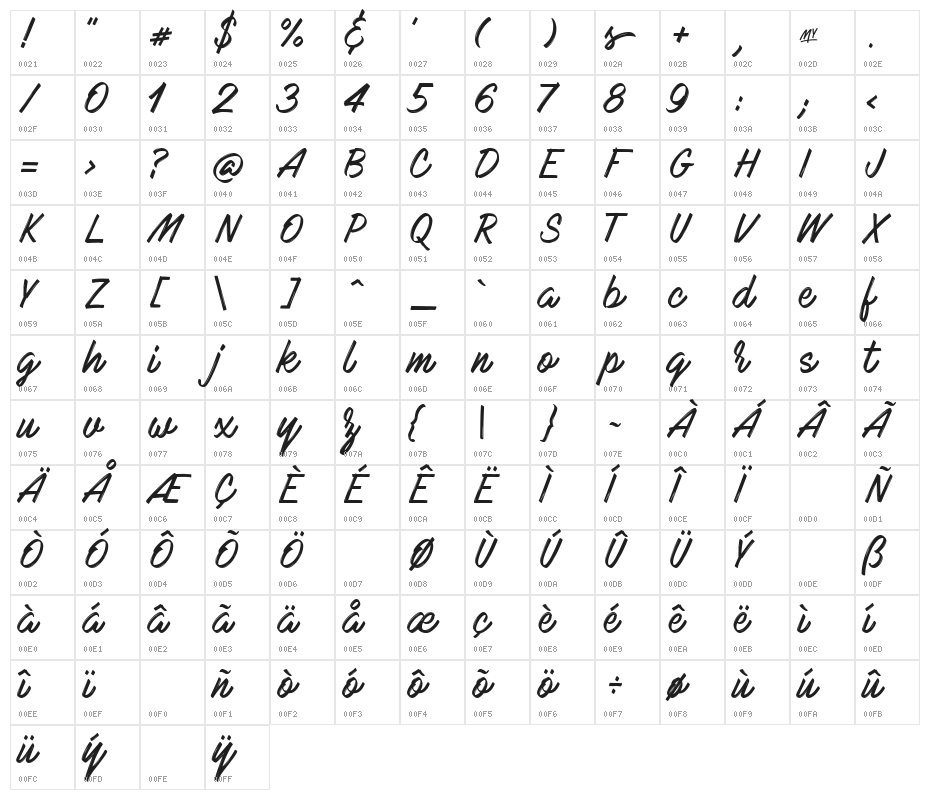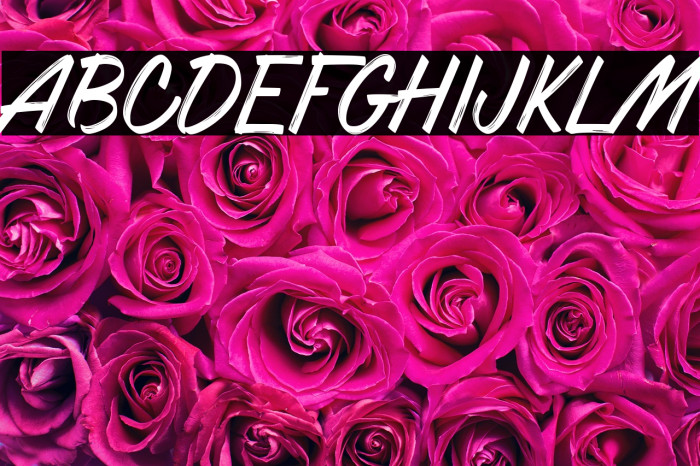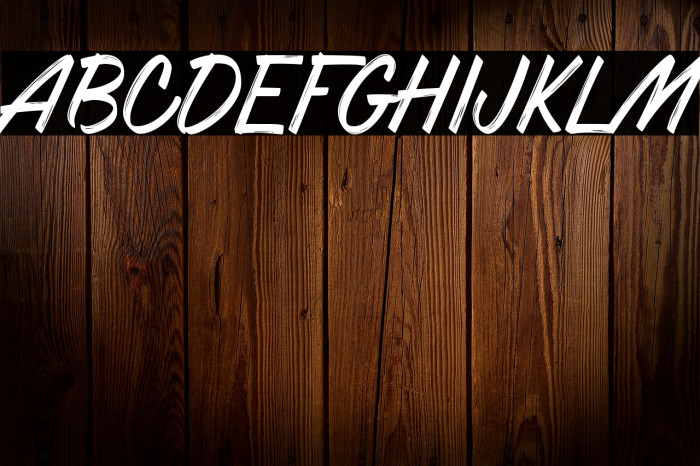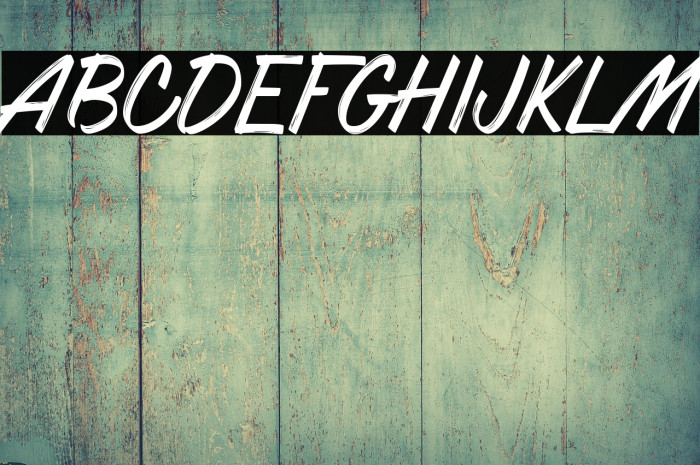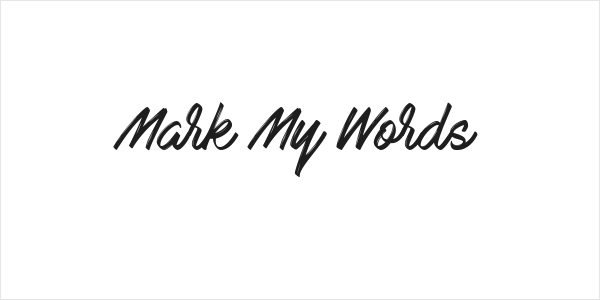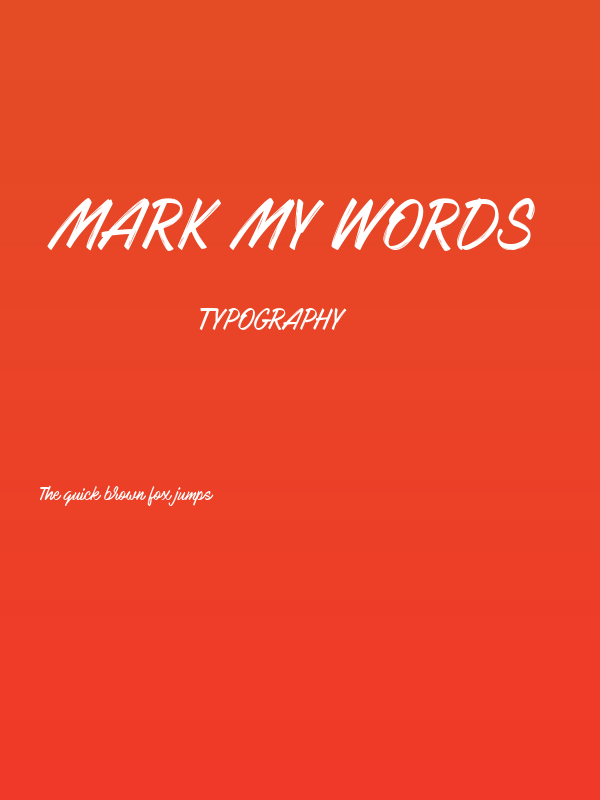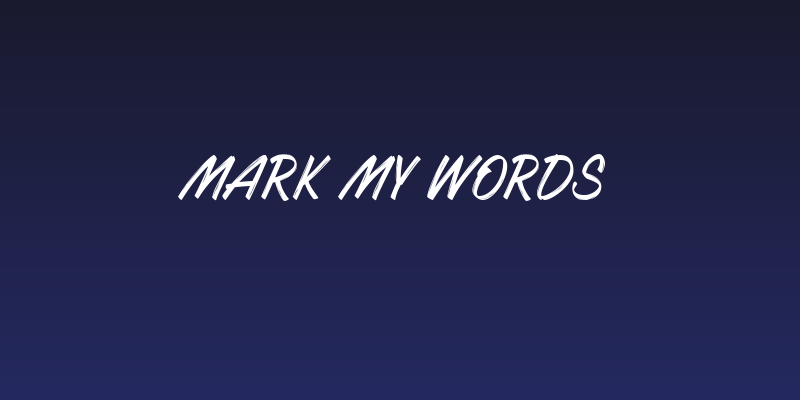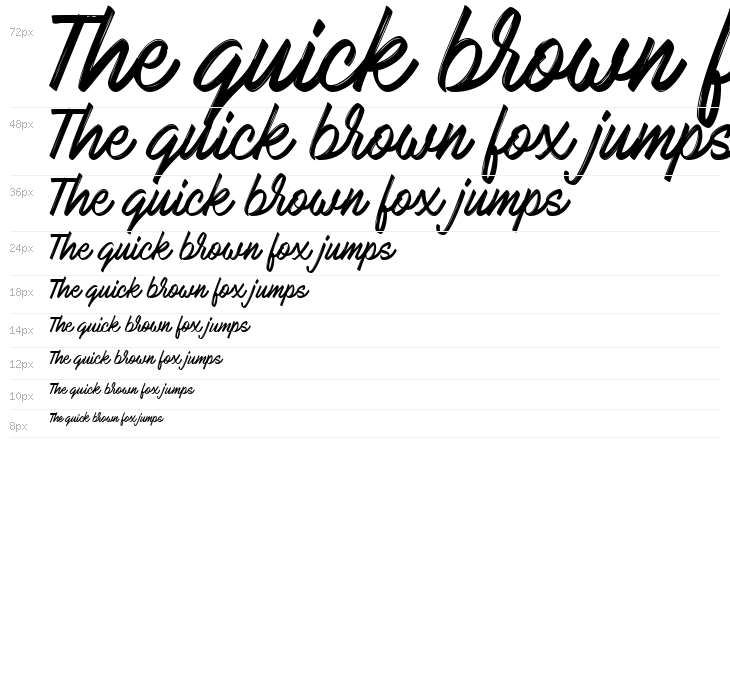
Mark My Words Font
Mark My Words Description
This font features a dynamic and expressive script style, characterized by its fluid, cursive letterforms that convey a sense of motion and elegance. The uppercase letters are bold and slightly slanted, with a consistent stroke width that adds to the overall cohesion of the design. The lowercase letters maintain a similar style, with smooth connections between characters that enhance readability while preserving the handwritten aesthetic. Numerals are well-integrated, matching the style of the alphabet with a slight slant and consistent weight. Special characters are thoughtfully designed to complement the overall look, making this font versatile for various applications. The font's bold presence and flowing lines make it ideal for creative projects that require a personal touch.